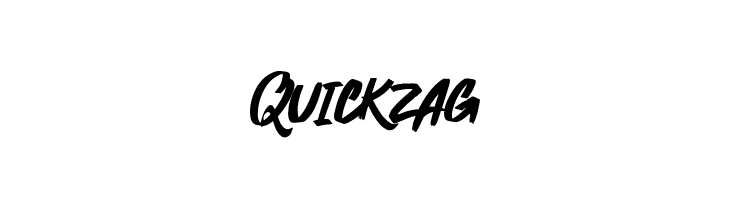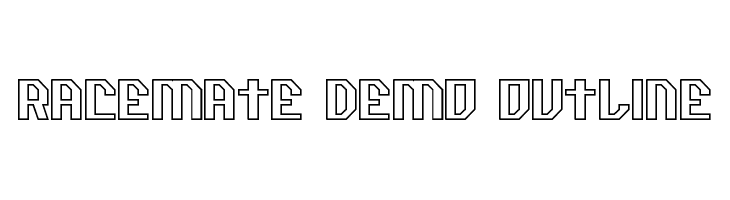
A bold, brush-style font with dynamic, slanted strokes.
An elegant and decorative script font with intricate loops and flourishes.
An elegant, flowing script font with ornate, cursive letterforms and italic styling.
An elegant script font with high contrast and decorative swashes.
A bold, playful font with a hand-drawn, cartoonish style.
A fluid and elegant script font with artistic cursive strokes.
A bold, italicized font with a sporty and dynamic style.
A bold, dynamic font with racing stripe accents and a futuristic style.
A bold, geometric font with sharp angles and a modern feel.
A bold, geometric outline font with a modern, industrial style.